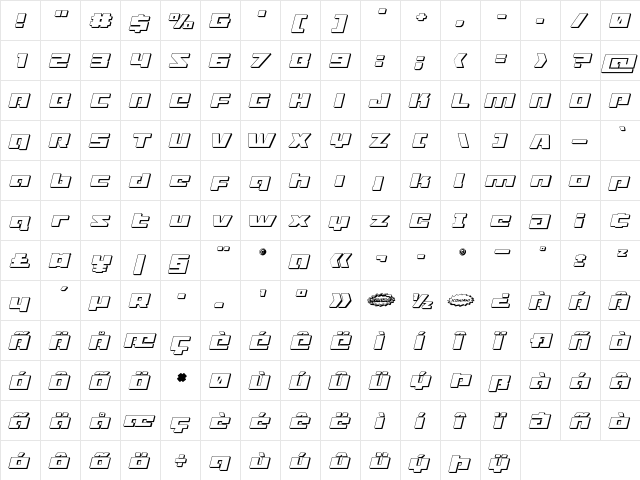
Turbo Charge 3D Italic Italic
Design Context for Turbo Charge 3D Italic Typeface
Turbo Charge 3D Italic is a composed and adaptable typeface that performs quietly and consistently across a wide range of design contexts. The dynamic lean of this cut emphasises speed and emphasis in any layout.
Pro Tip: Use Turbo Charge 3D Italic for emphasis, pull quotes, and subheadings where its slanted energy can add rhythm to the layout.